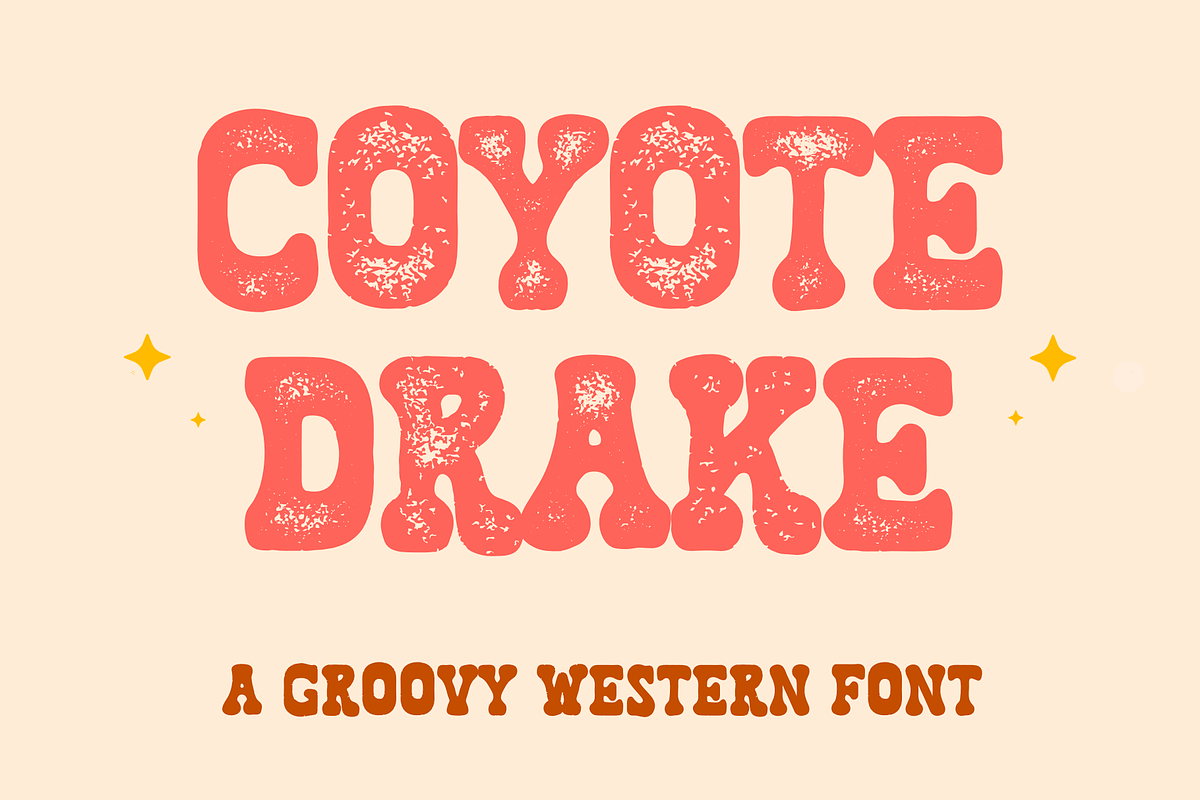
Coyote Drake Font - Groovy Western Free Download
Coyote Drake Font - Groovy Western Free Download is a unique blend of bold western typography and retro, groovy design elements. This font combines rugged, vintage-inspired letterforms with a touch of flair, making it perfect for creating standout designs with a southwestern or cowboy theme. Ideal for branding, posters, logos, apparel, and more, Coyote Drake brings a classic yet fun touch to any project.
With its strong serifs and expressive curves, this font is perfect for designs that want to channel a nostalgic western vibe, all while adding a touch of playful energy. Whether you're working on a rodeo poster, music event graphics, or a western-themed brand, Coyote Drake Font - Groovy Western Free Download will make your typography stand out.
Bring a bold, retro western twist to your typography with Coyote Drake Font - Groovy Western Free Download, and add timeless character to your creative projects. Ideal for designers looking to combine groovy style with rugged western charm.